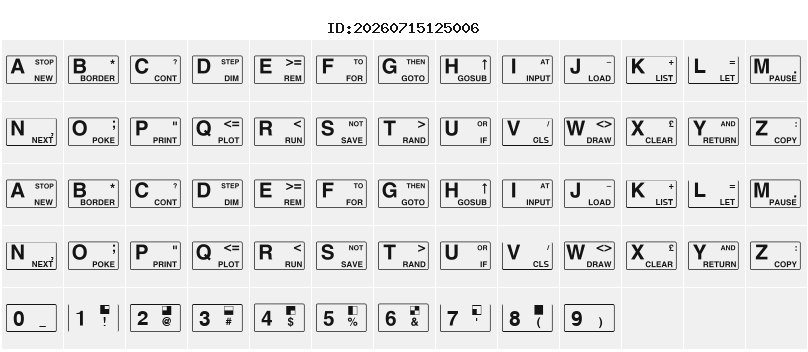
ZXSpectrum Preview
• Font Name: ZXSpectrum
• Font Style: Keyboard
• Full Font Name: ZXSpectrum Keyboard
• PostScript Name: ZXSpectrumKeyboard
About ZXSpectrum.ttf
ZXSpectrum.ttf is a modern, elegant sans-serif font designed for ultimate readability and visual harmony. Perfect for branding, headlines, web design, and print materials.